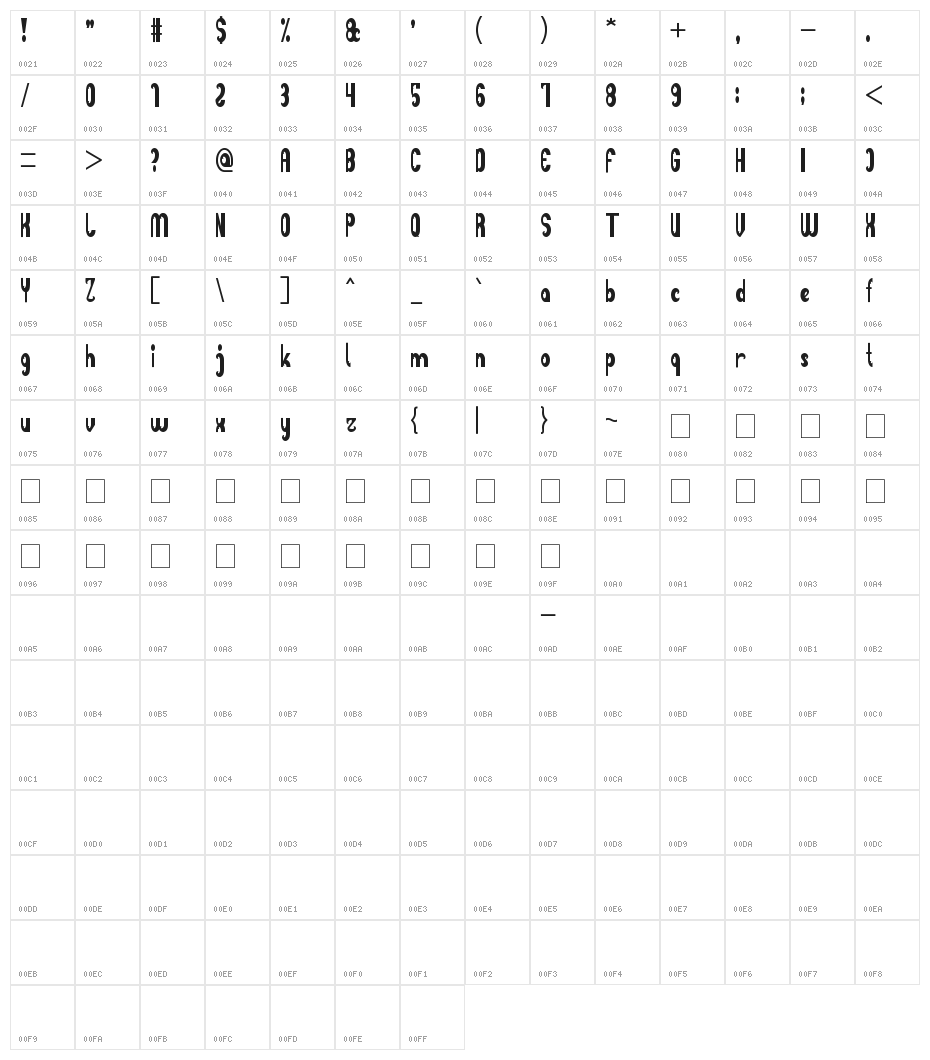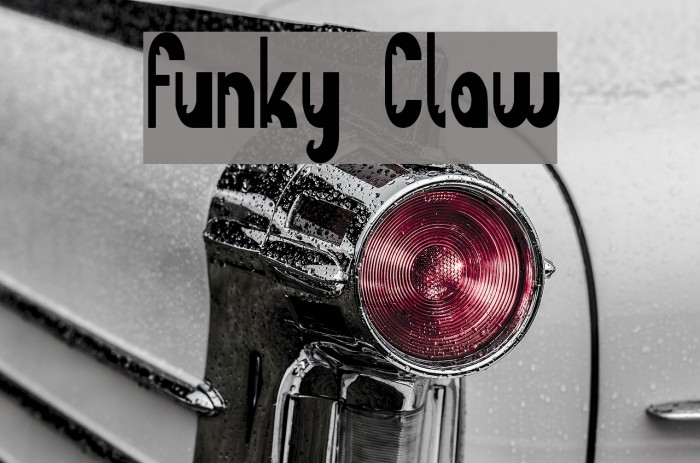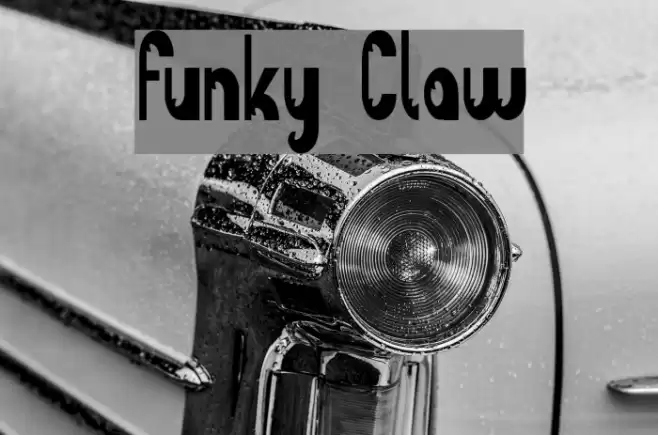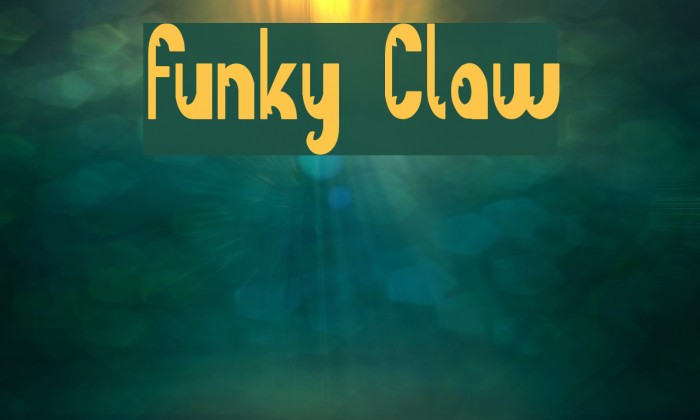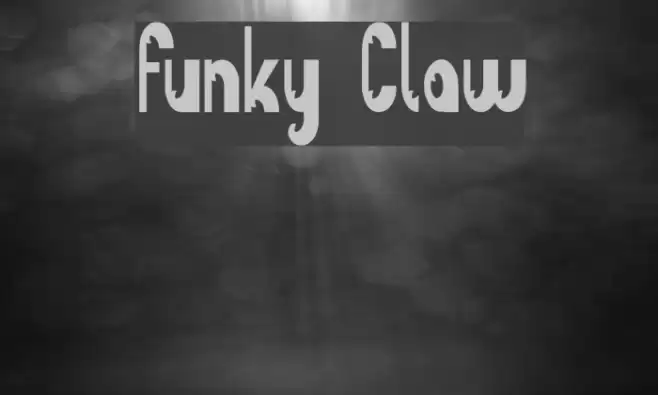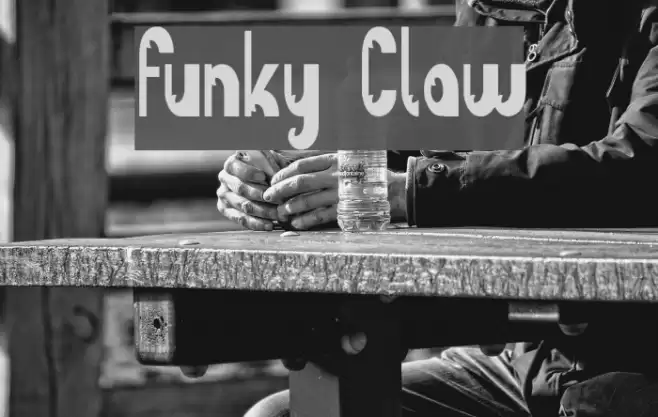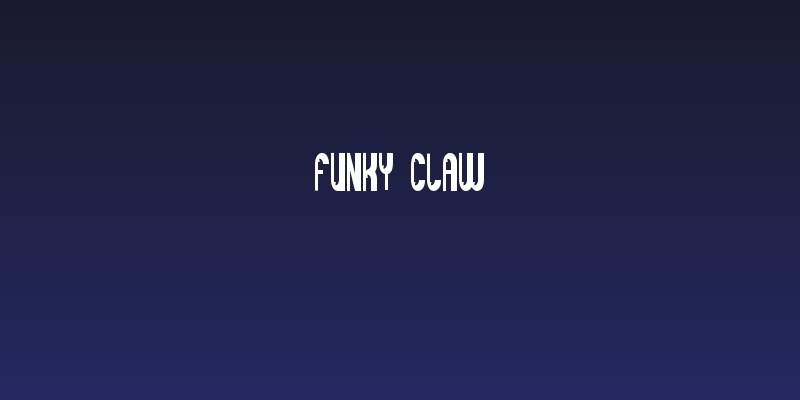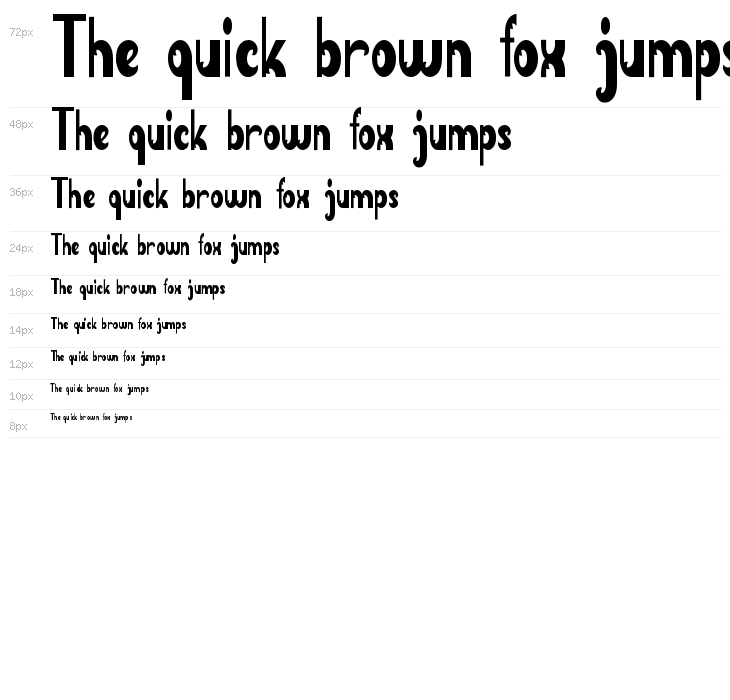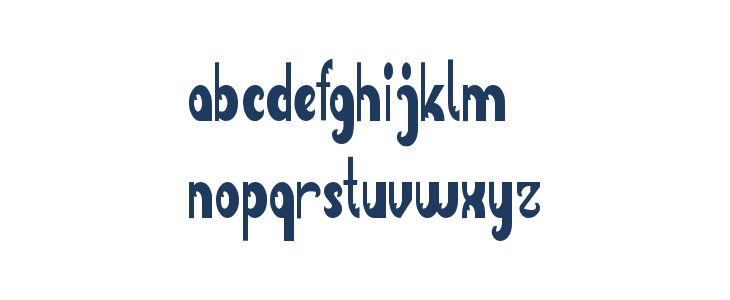
Funky Claw Font
Funky Claw Description
This font features a bold and playful design with a unique claw-like appearance on certain characters. The uppercase letters are tall and slightly condensed, with a distinct curvature that adds a whimsical touch. Lowercase letters maintain a consistent style, complementing the uppercase with their rounded forms. The numerals are bold and easily readable, while the special characters carry the same quirky flair. This font's overall design is eye-catching and suitable for creative and fun projects.
| Proposed Projects | Ideal for children's books, playful branding, posters, and creative invitations. |